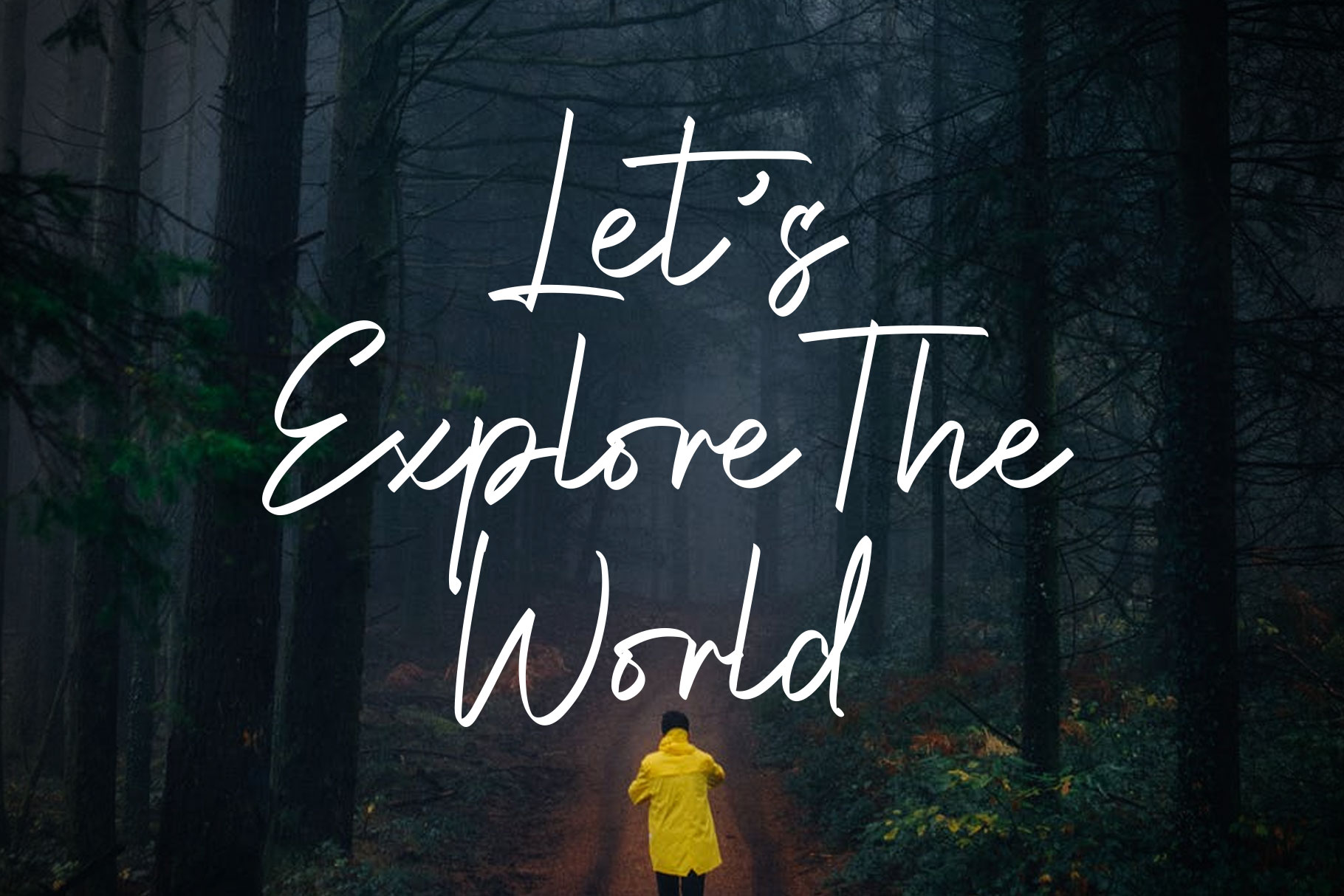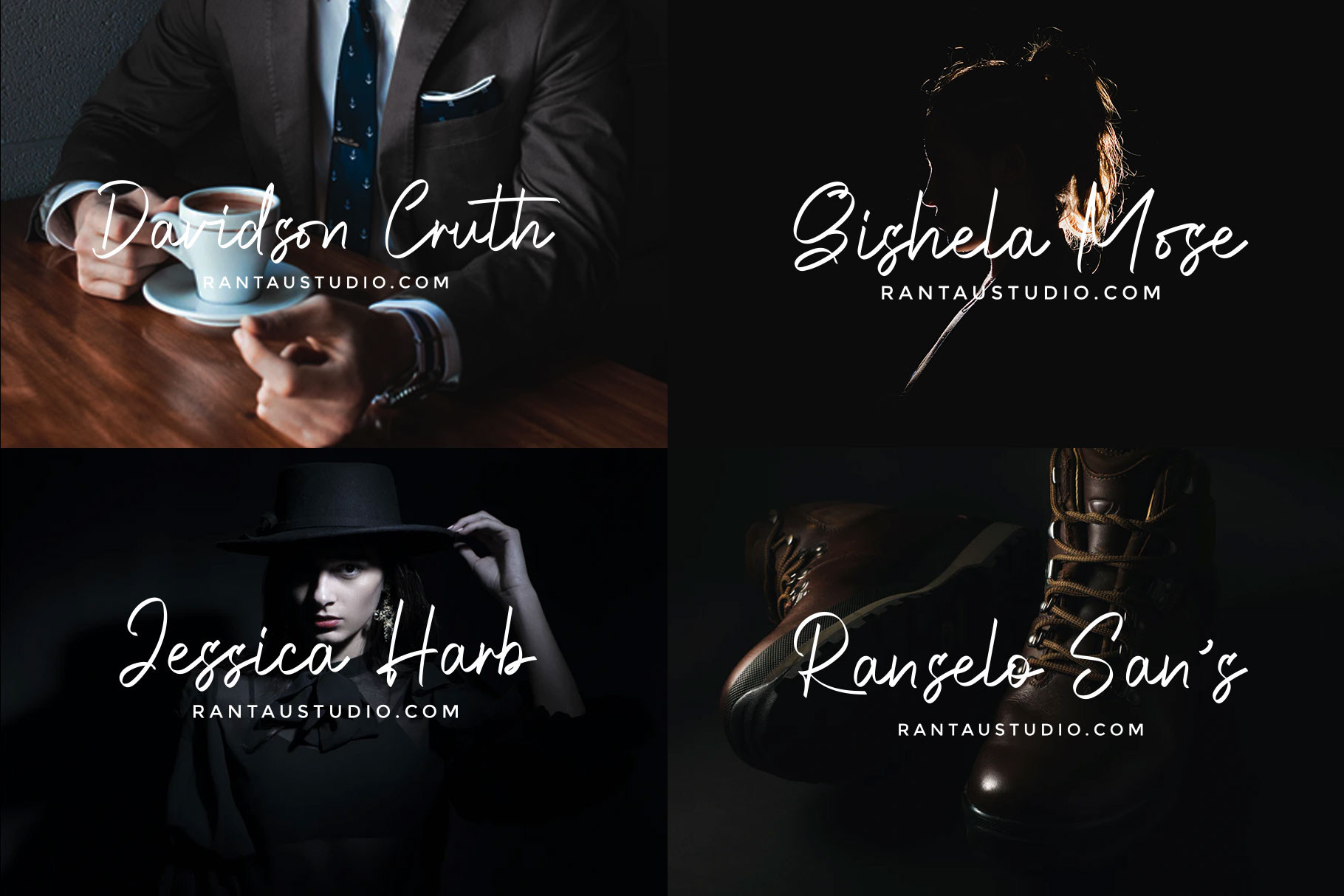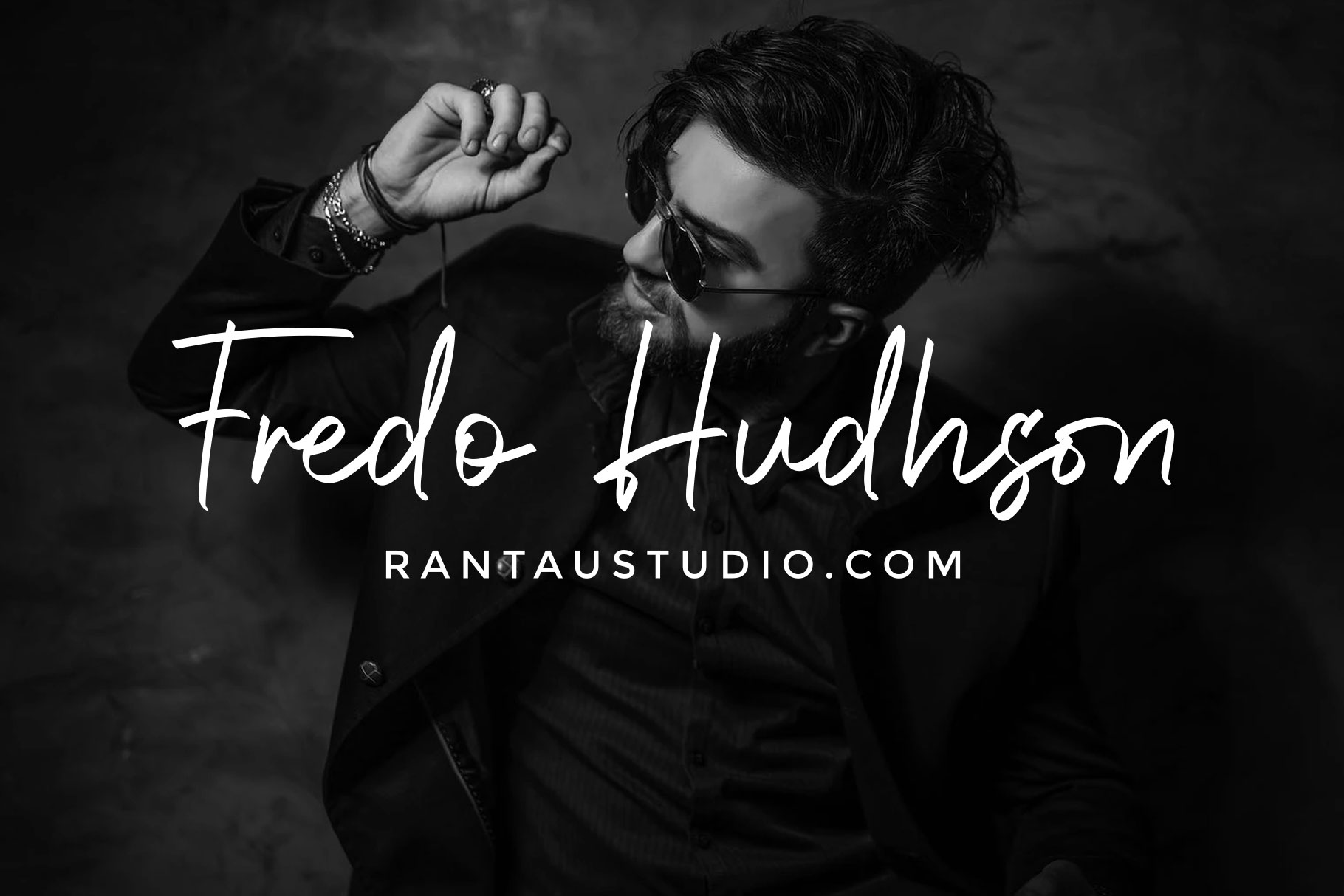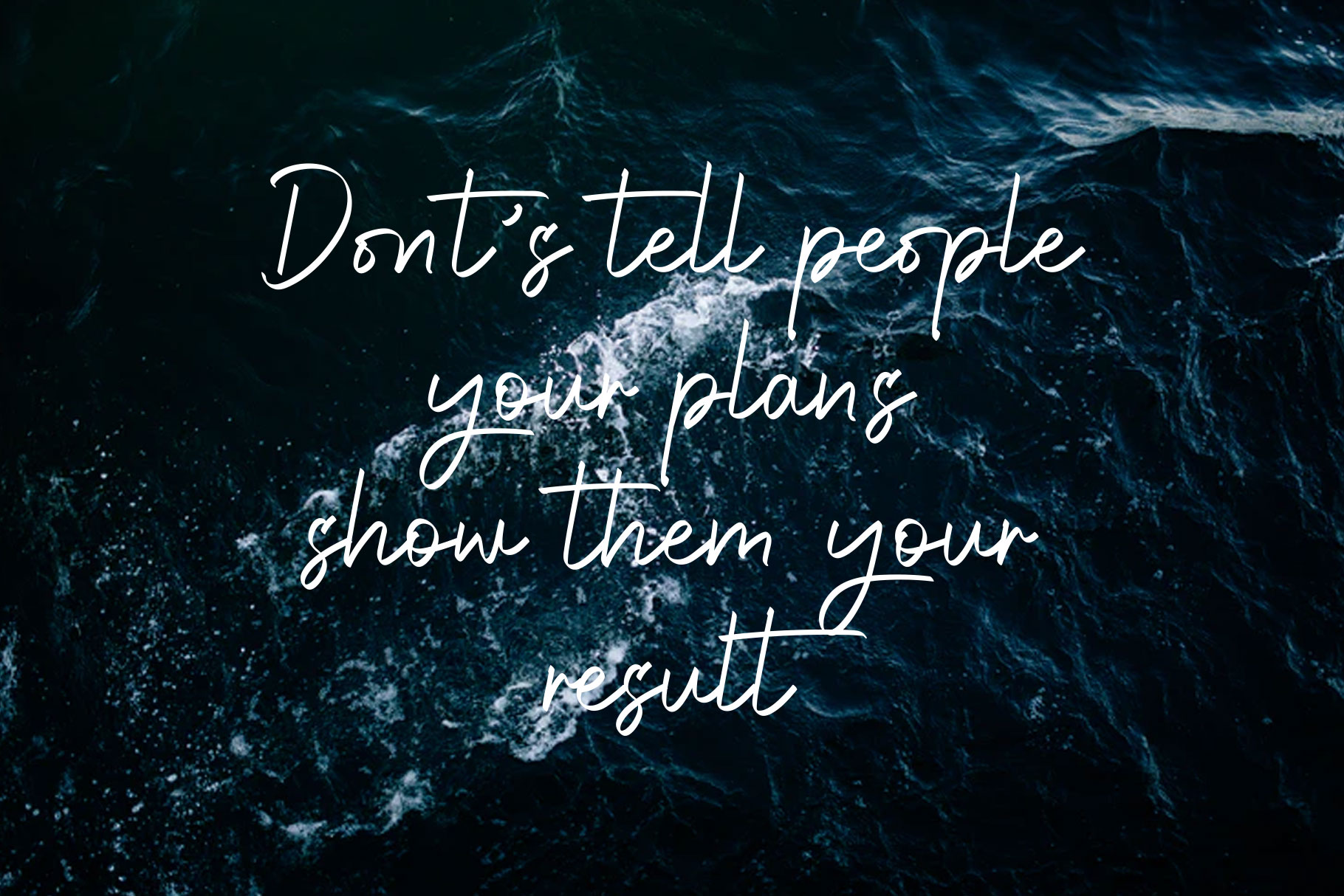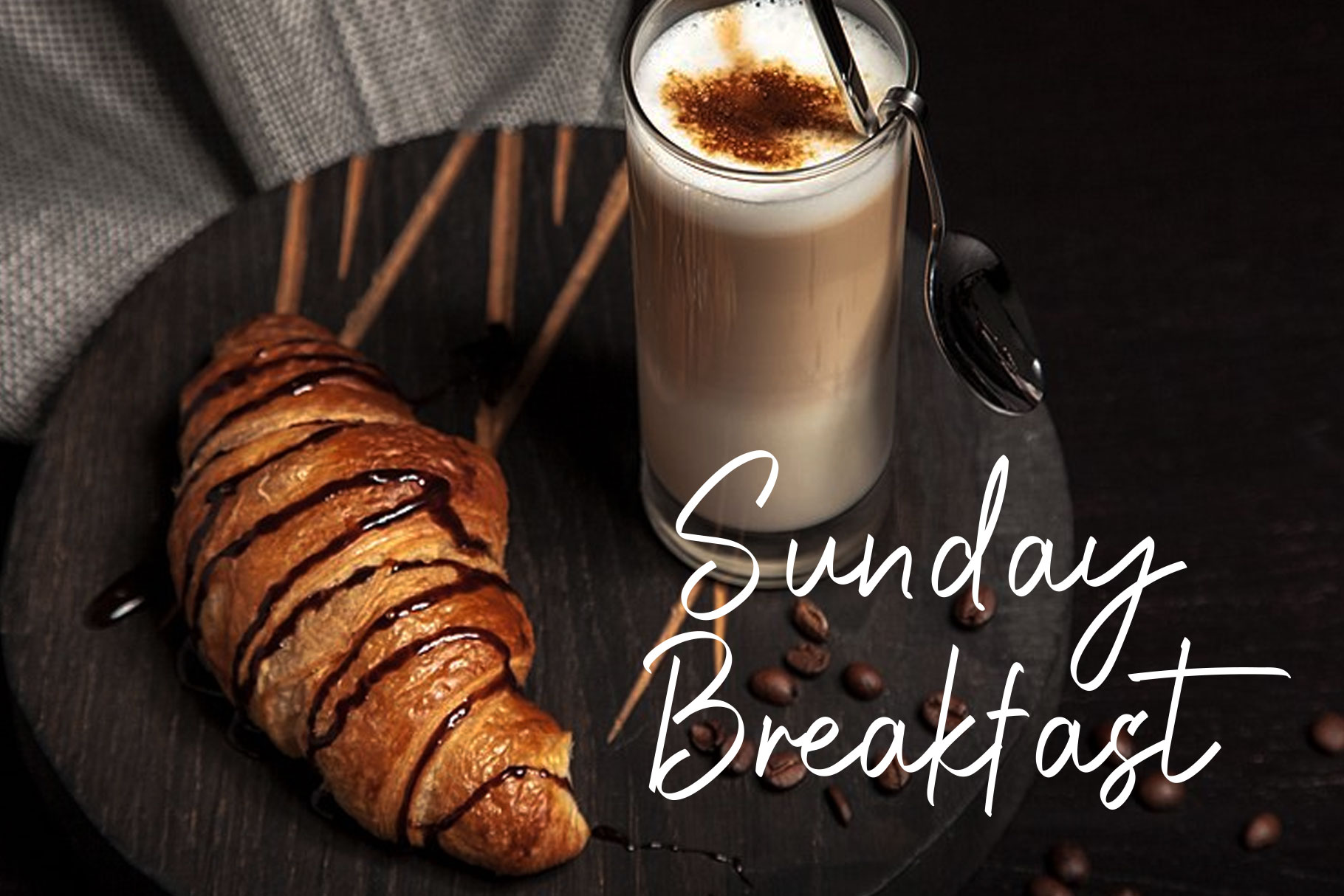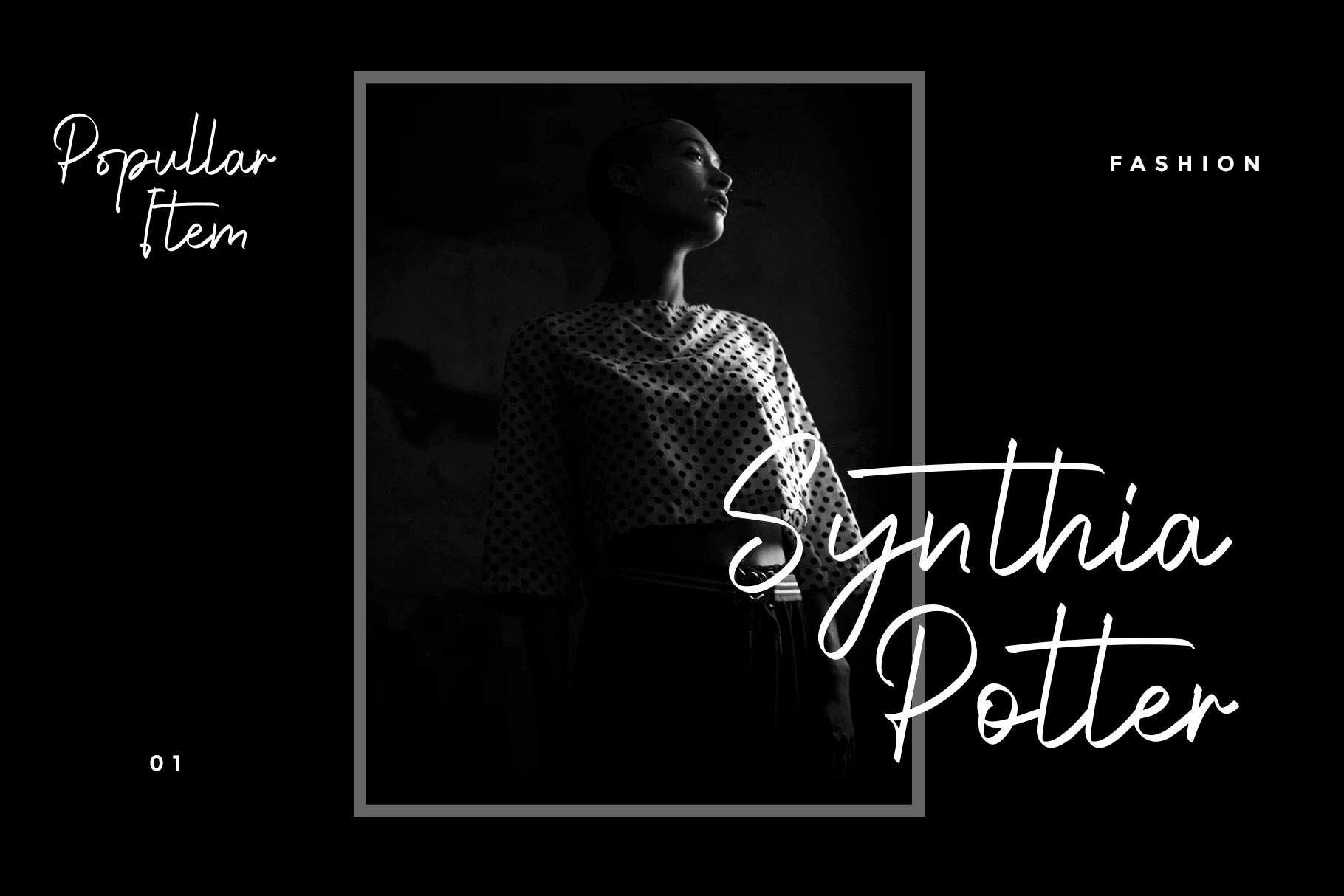
Holdington Handwritten Font
This font is modern style which can be interpreted professional. we keep this font looks modern, readable, stylish, catchy and easy to use. Holdington is the great choice for watermark on photography, signature or signature logo design, quotes, album cover, business card and many other design project.Holdington is here to make your work to high level!!!
• Basic Latin A-Z and a-z